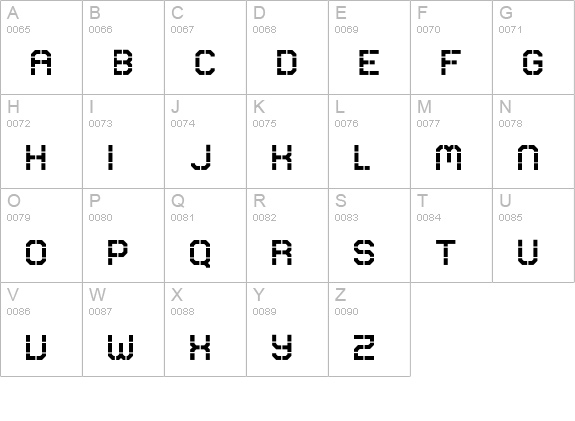
Comsat-Navy-Station Font Details
Comsat-Navy-Station font is a modern and sleek typeface that exudes a sense of strength and authority. Its bold letterforms and sharp angles make it perfect for conveying a sense of power and professionalism in any design project. The font's clean lines and distinctive style set it apart from other fonts, making it a standout choice for headlines, logos, and branding materials. What's even better is that Comsat-Navy-Station font is completely free to download at FontsMarket.com. This means you can add this striking font to your collection without any cost, making it a valuable resource for your creative projects. Don't miss out on the opportunity to enhance your designs with the bold and impactful Comsat-Navy-Station font – download it today and take your projects to the next level.